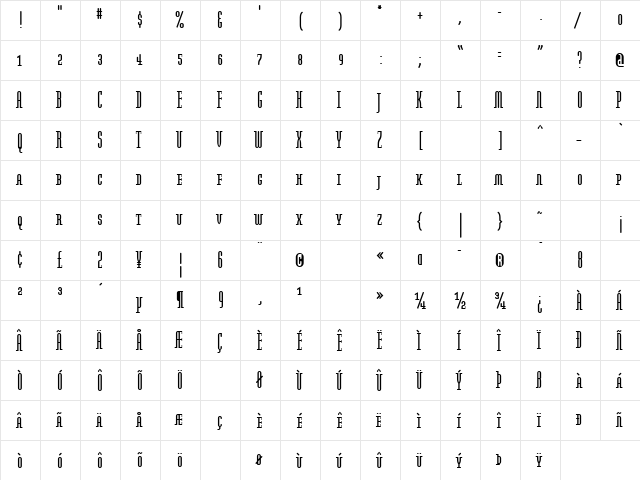
ModulaRoundSerifSmallCaps Regular
Design Context for ModulaRoundSerifSmallCaps Typeface
ModulaRoundSerifSmallCaps brings classic typographic sensibility to the table — its serifs and measured letterforms reflect centuries of print heritage.